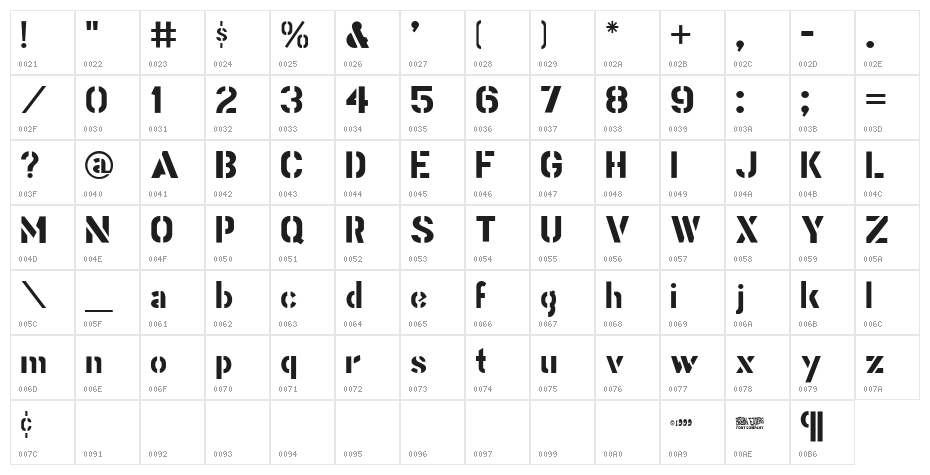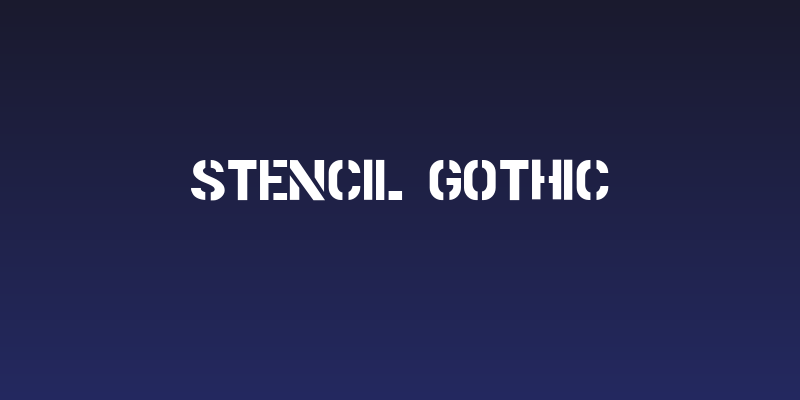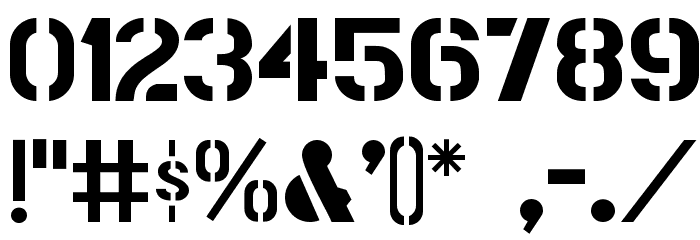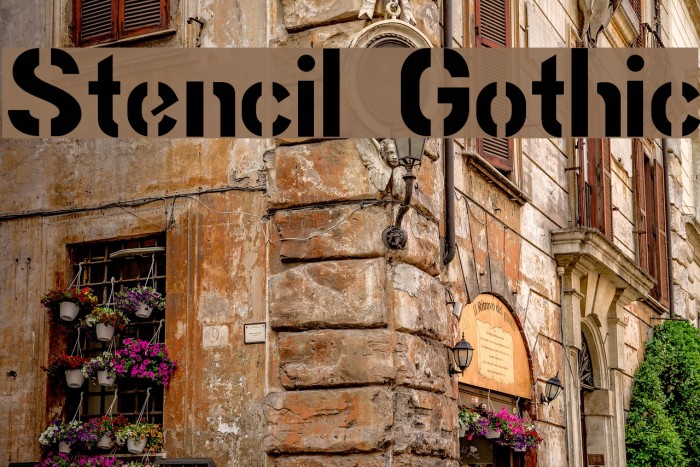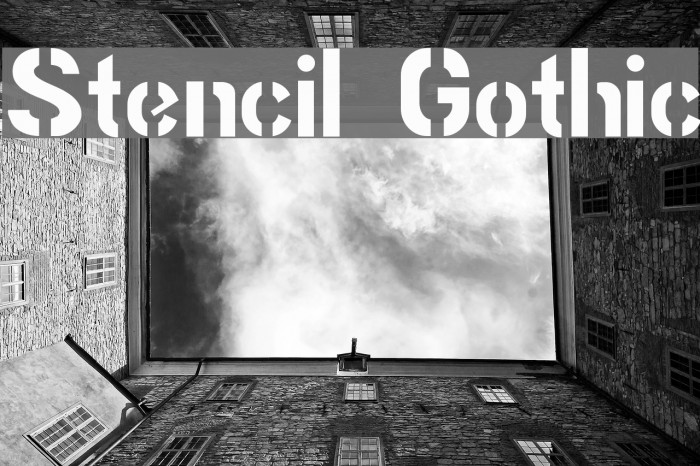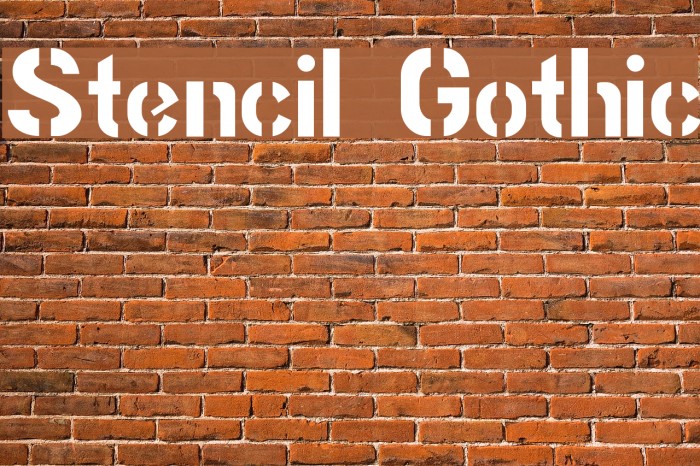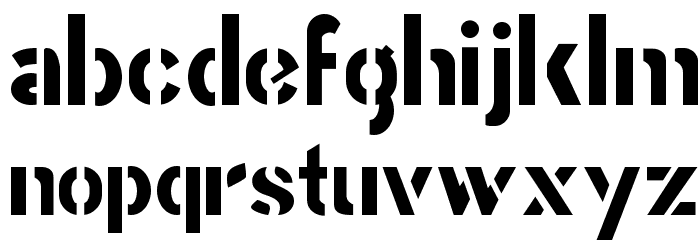
Stencil Gothic Font
Stencil Gothic Description
This font features a bold, impactful design with a stencil-like appearance, characterized by breaks in the strokes that mimic the look of traditional stenciling. The uppercase and lowercase letters maintain a consistent geometric structure, providing a sense of uniformity and strength. The numerals and special characters follow the same stylistic approach, ensuring cohesion across all glyphs. Its boldness and distinct style make it highly legible from a distance, ideal for attention-grabbing designs. The font's unique cut-out style adds a layer of visual interest, making it suitable for creative and industrial-themed projects.
| Use Case | Headlines, Logos, Signage |
| Proposed Projects | Ideal for posters, signage, branding, and industrial-themed designs. |